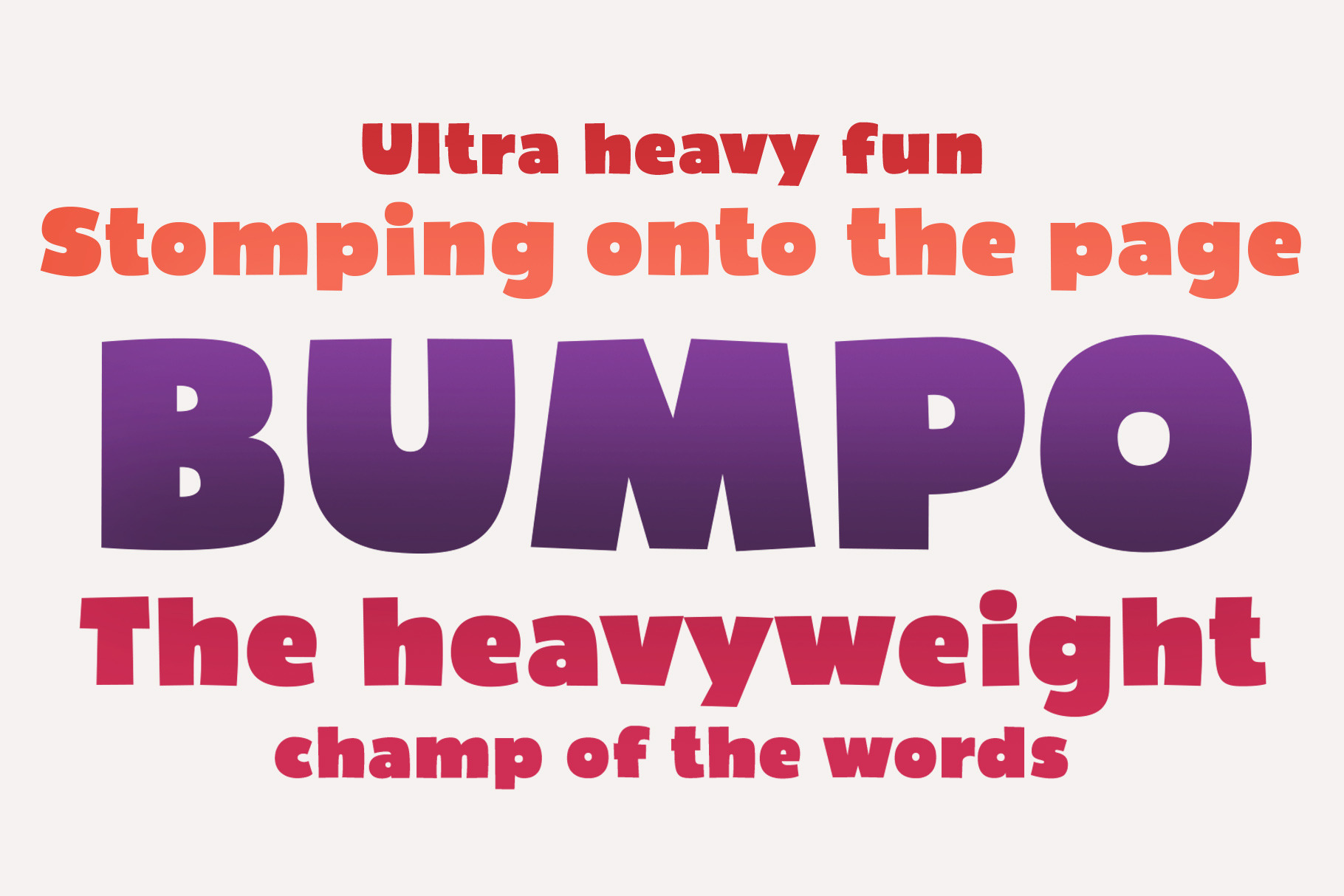
Bumpo Font
Bumpo is a chunky and a fun display typeface. With an extra heavy but friendly personality, Bumpo works well for posters, food packaging, children’s products and books, or any communications which needs to be friendly, fun, casual or loud.